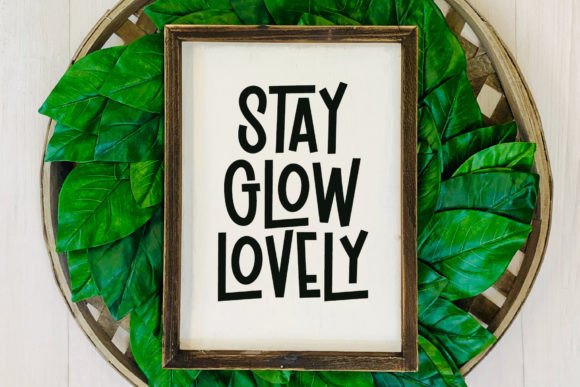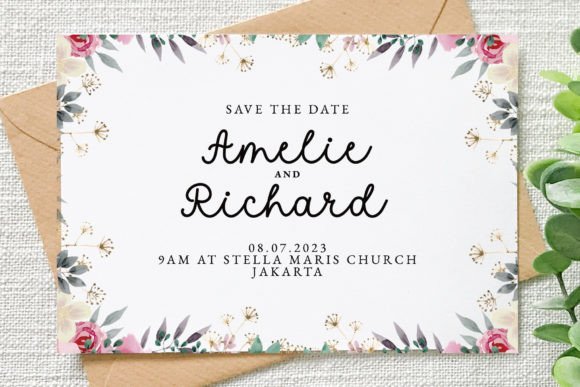
Pretty Summer Font
Pretty Summer is cute, playful, and fun font duo. Fonts can be used together or in separate designs.
This font is perfect for design that needs cute and playful touch, such as wedding design, invitation, birthday, t-shirt design, crafting, sticker, sublimation, and many more.